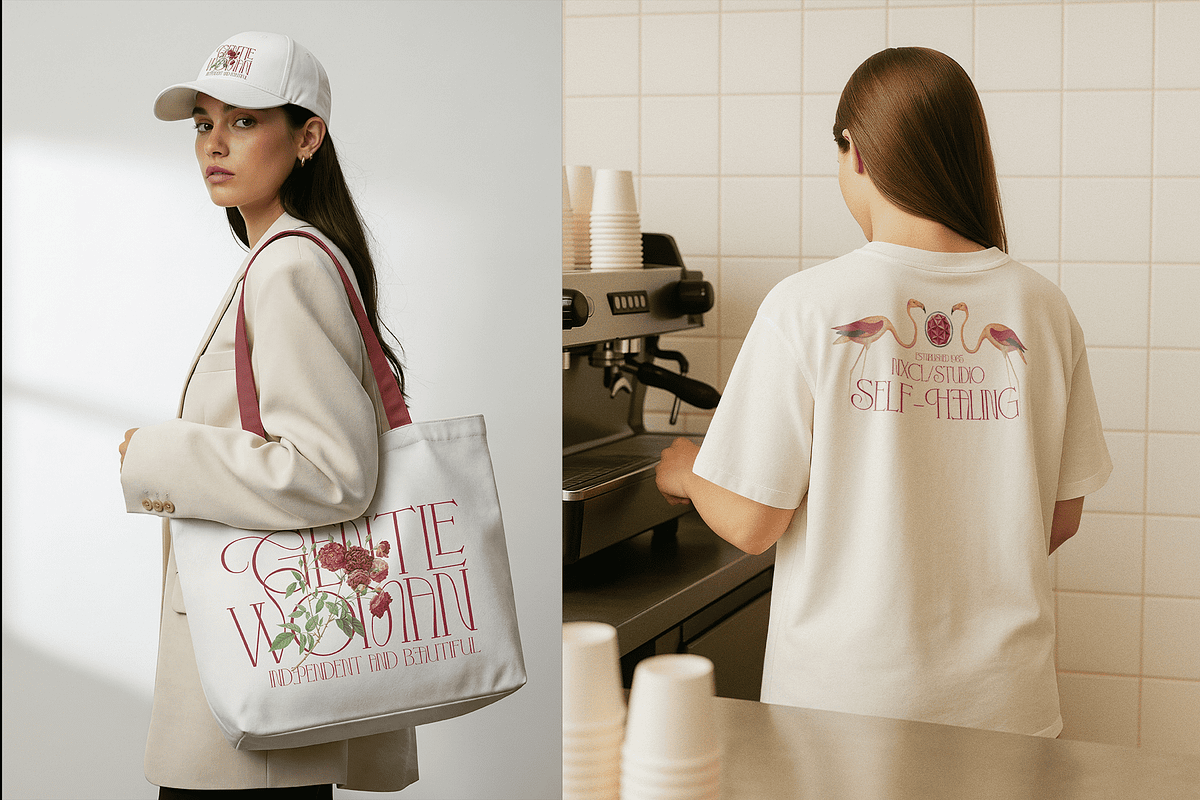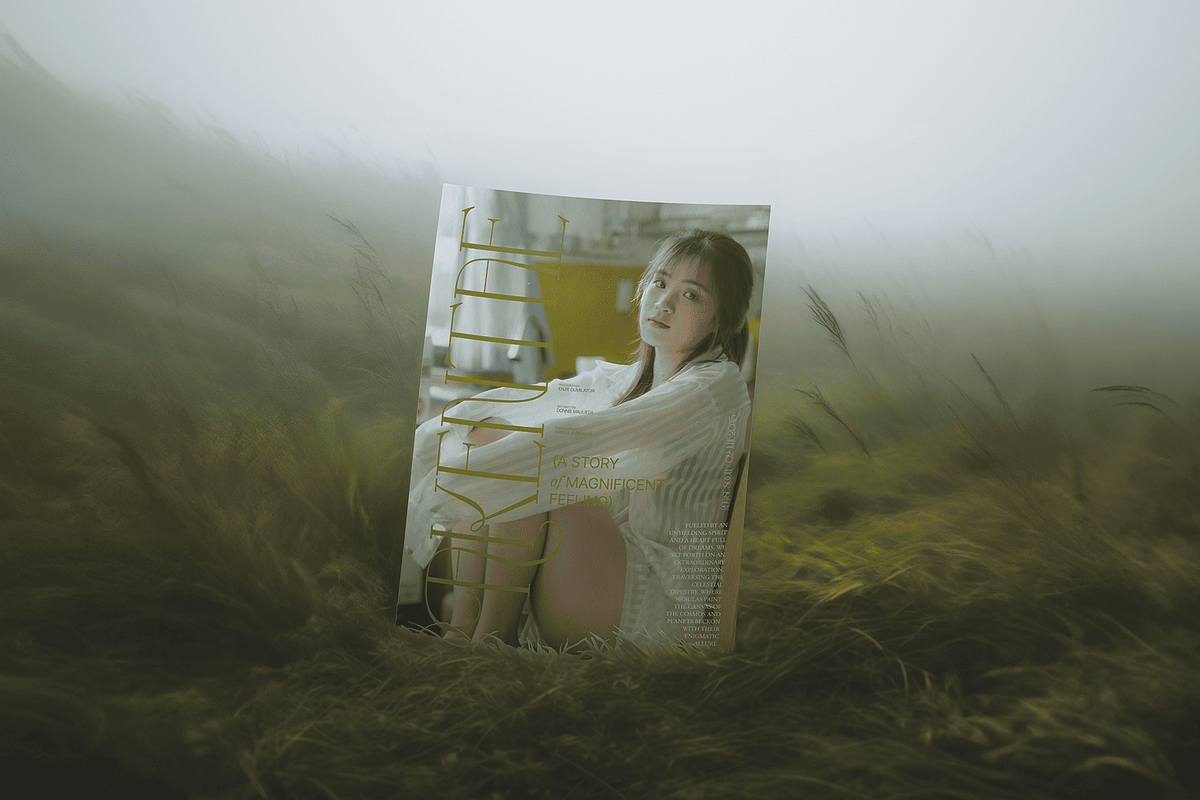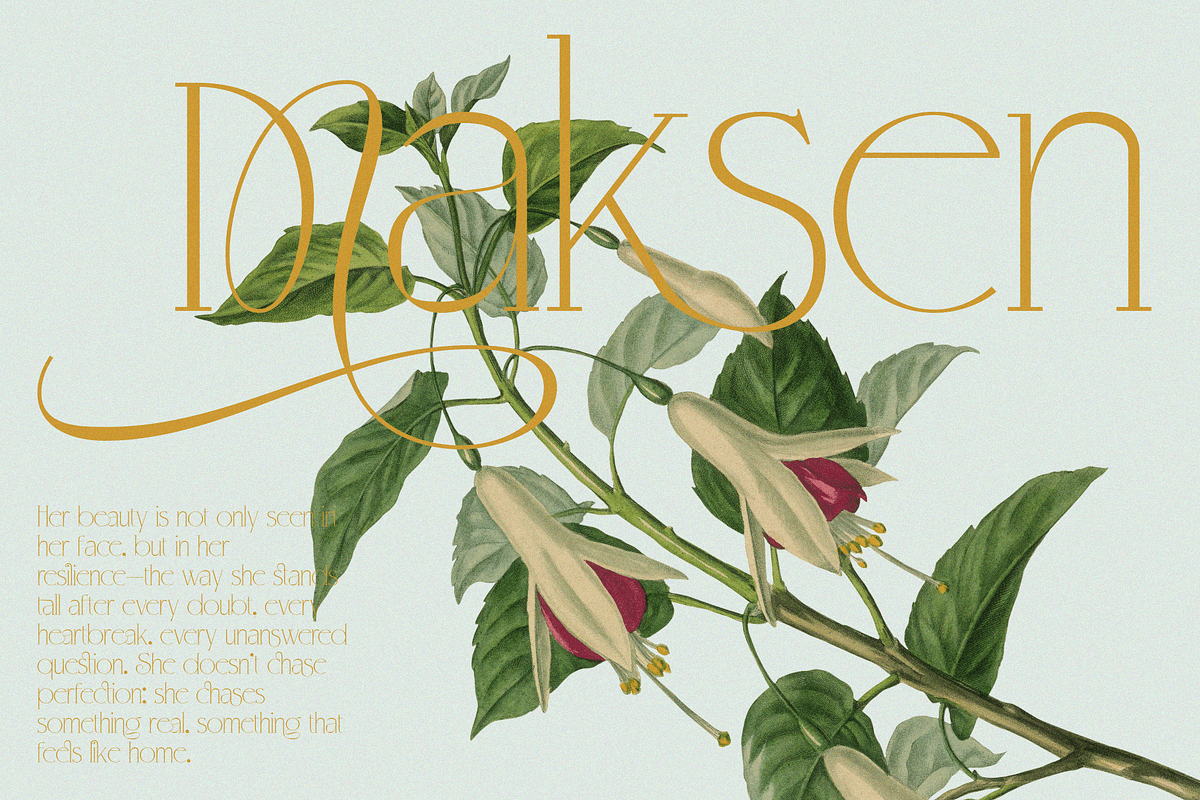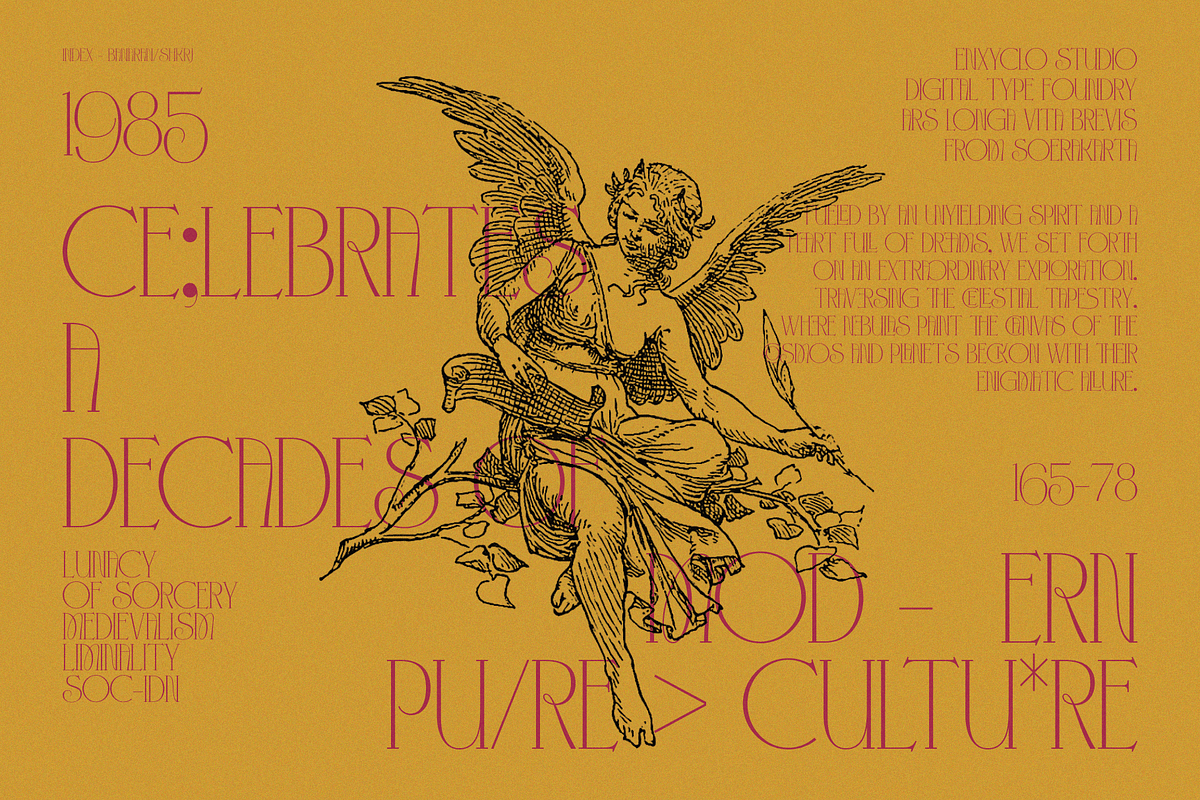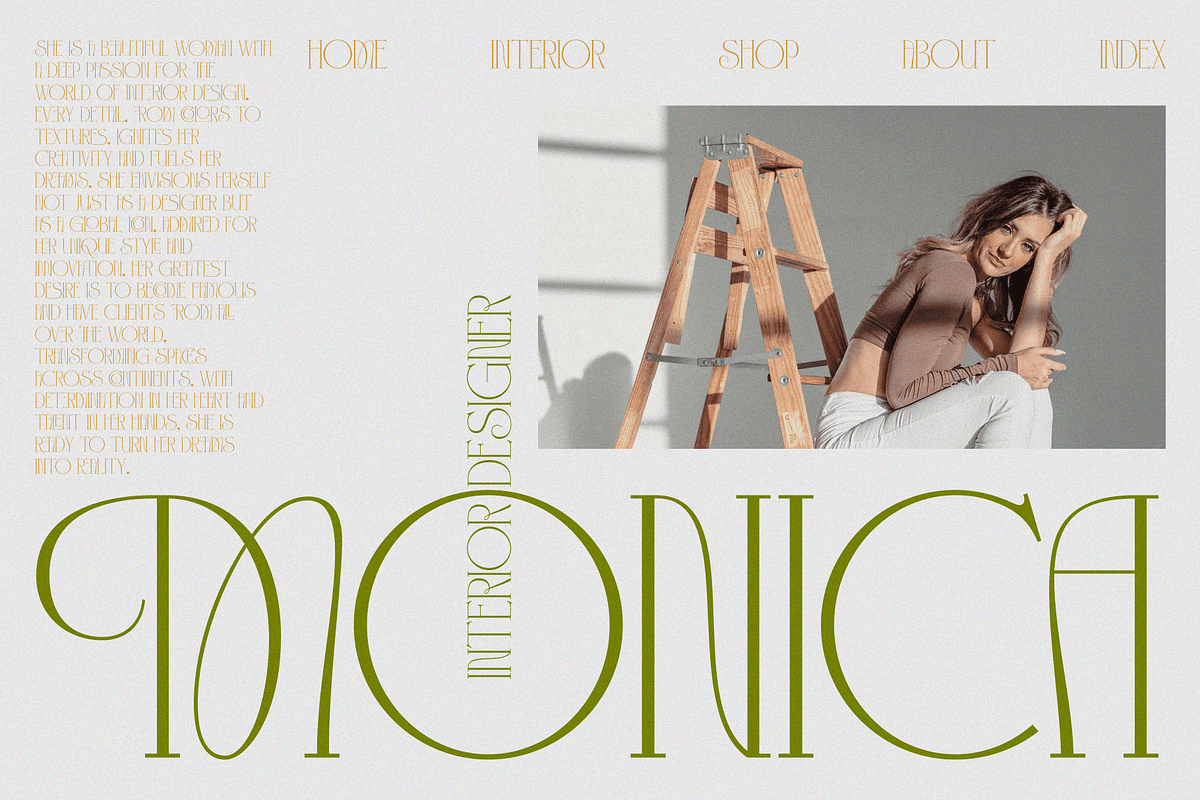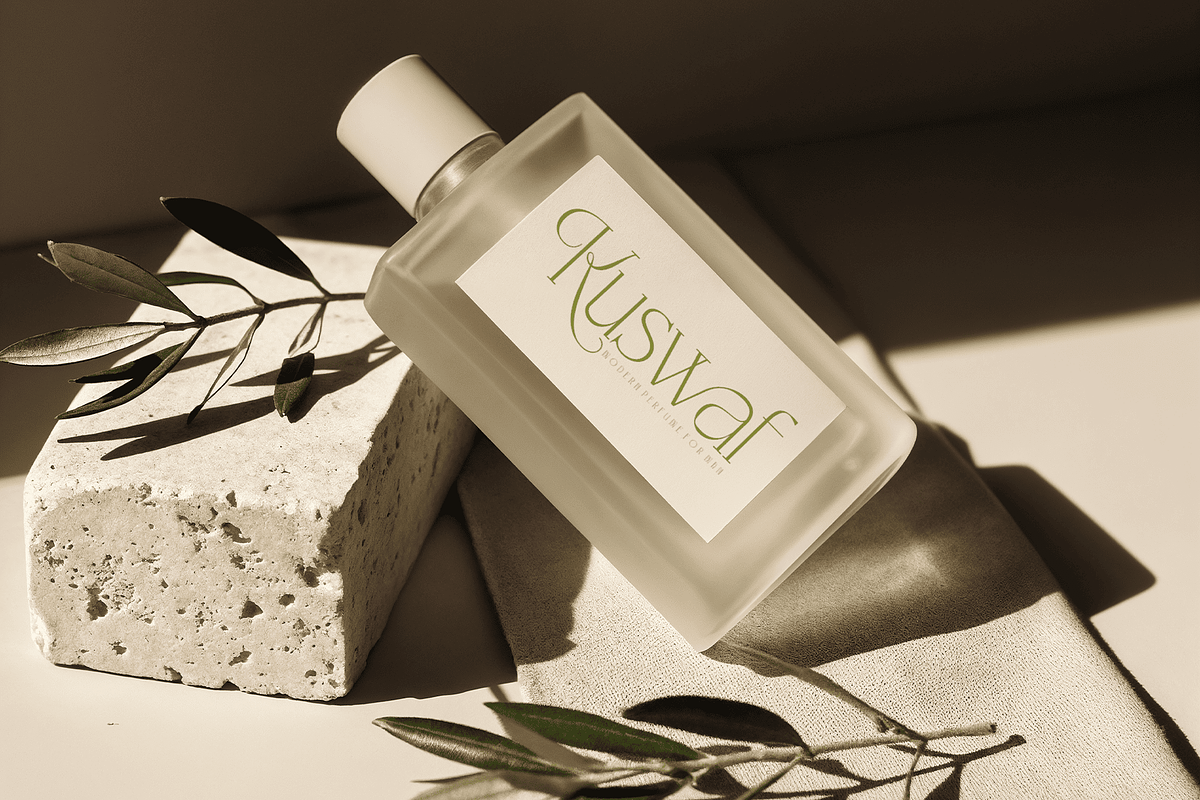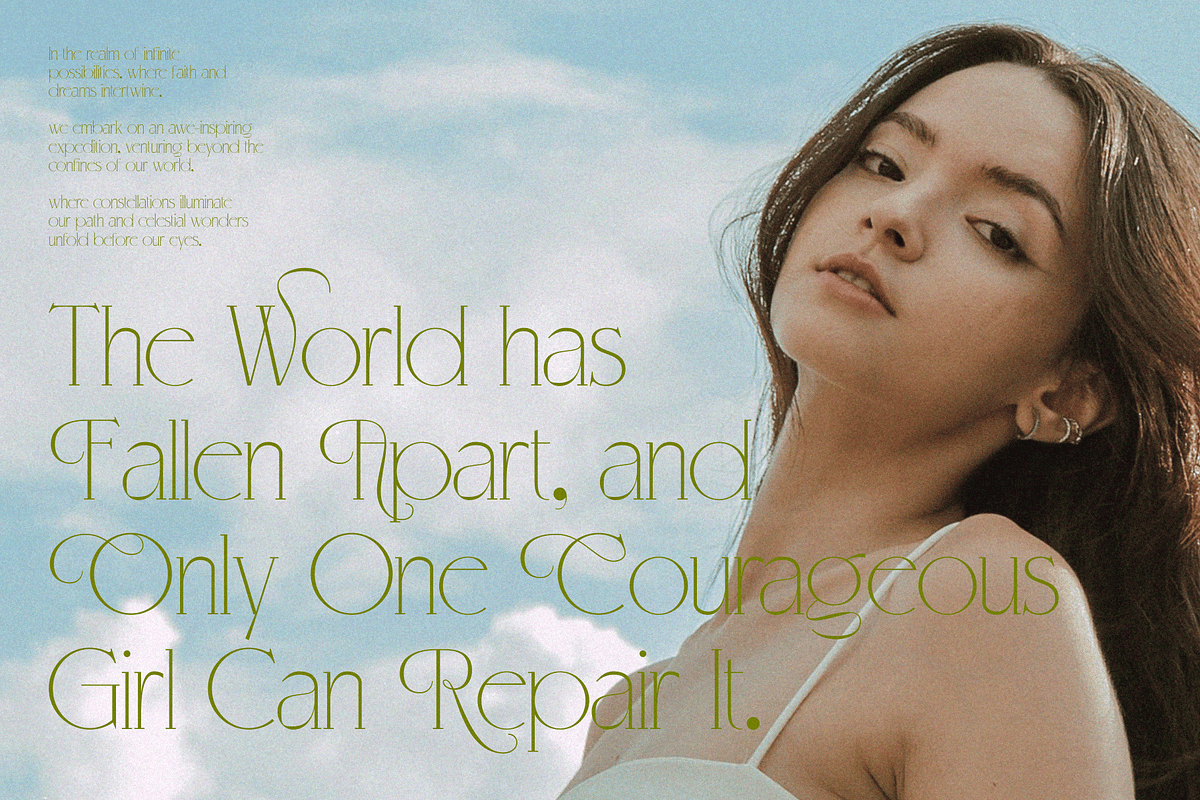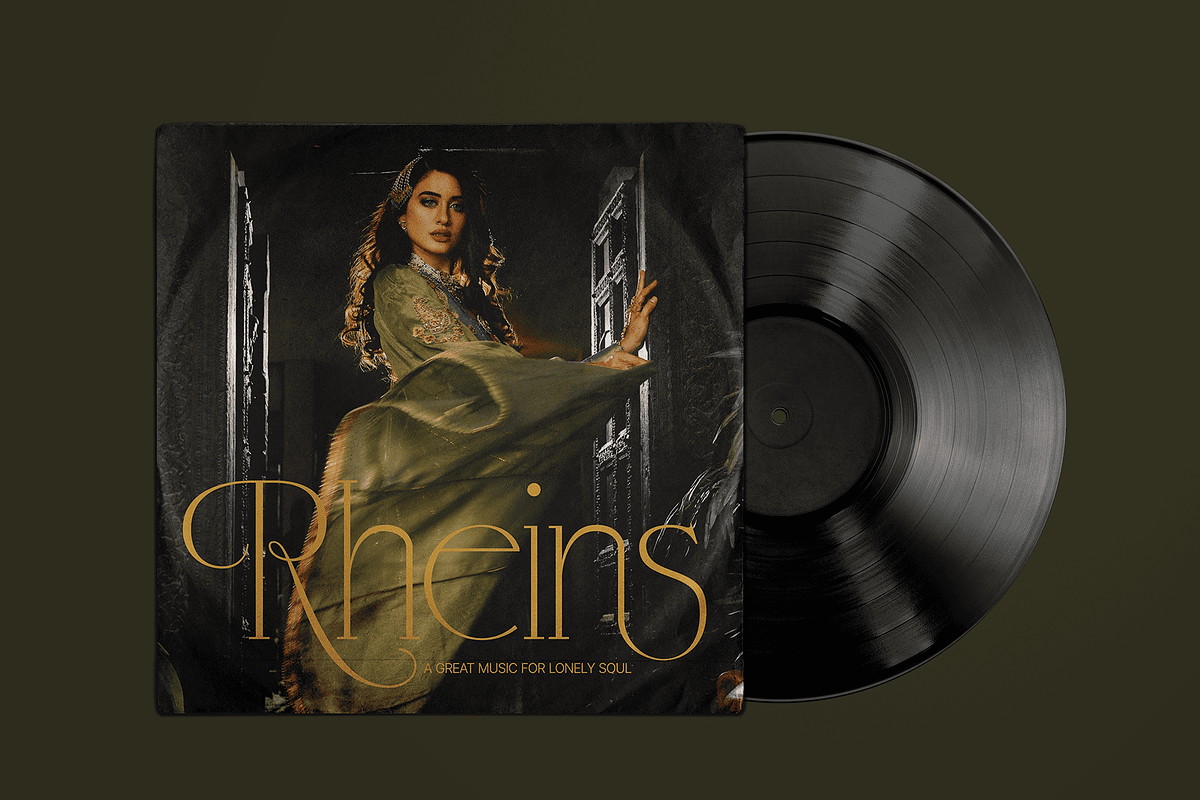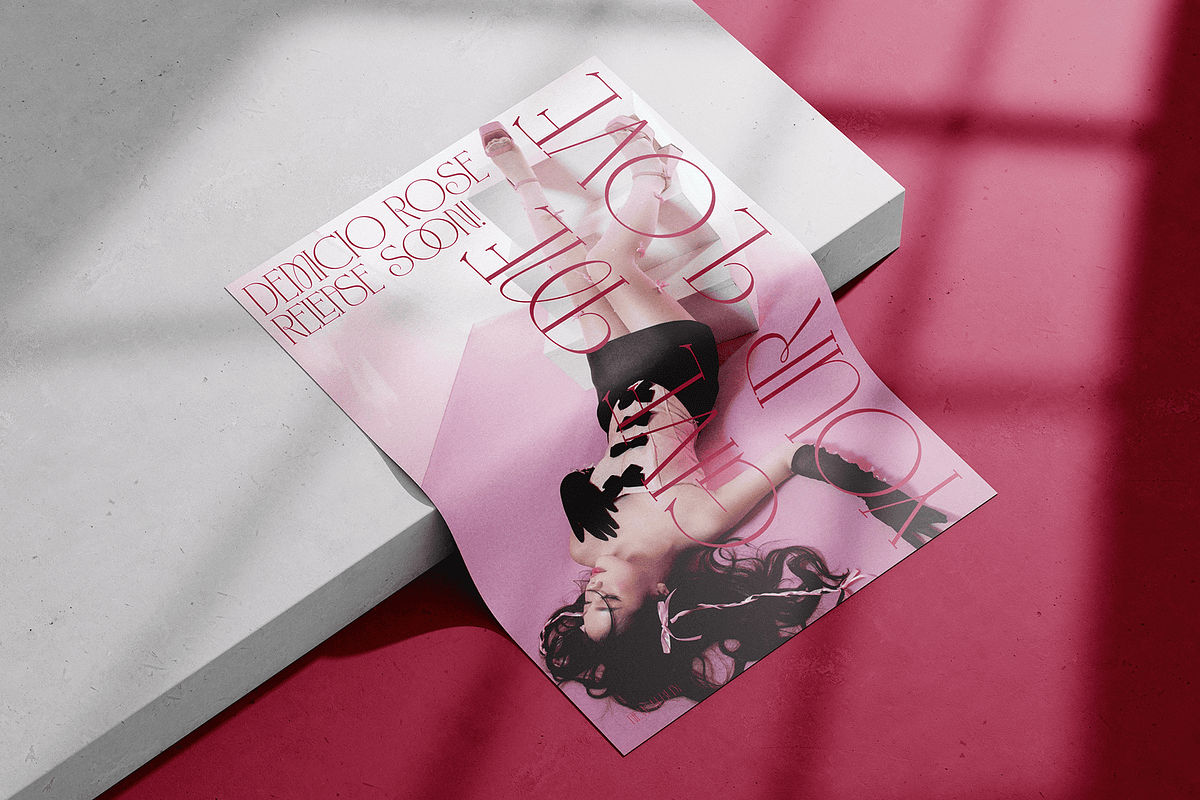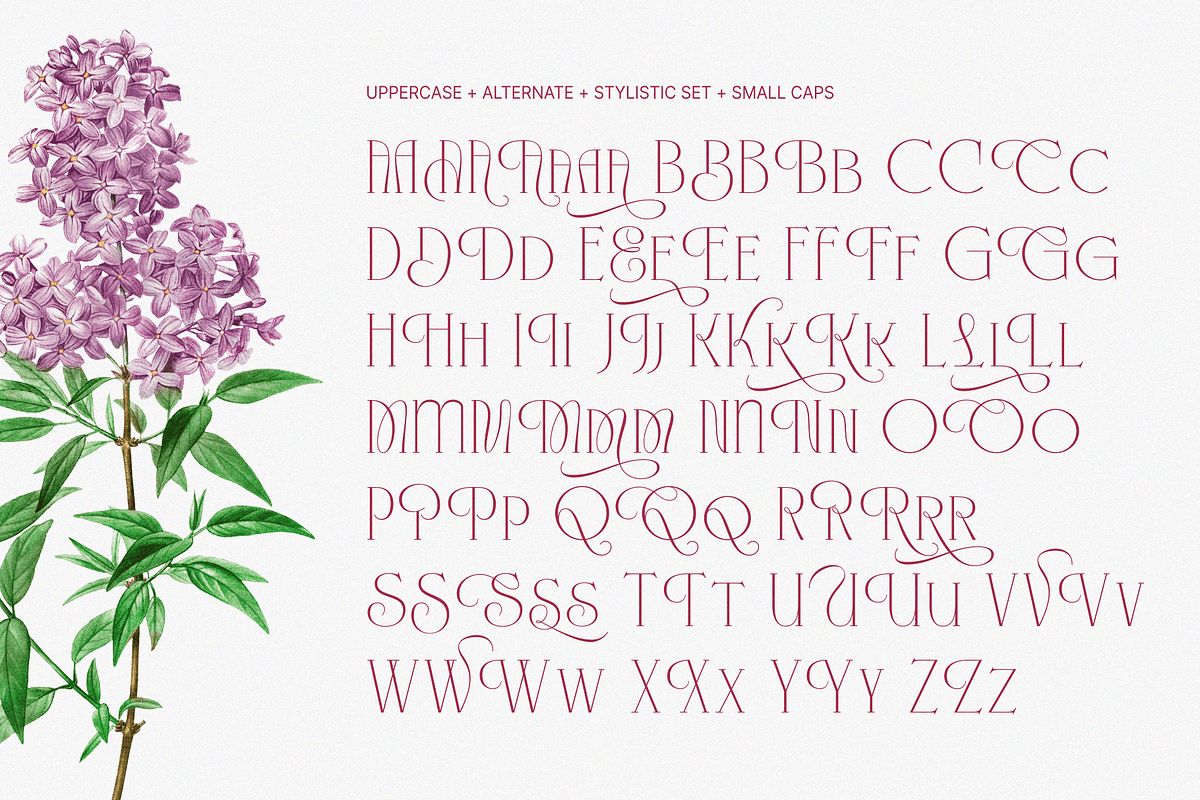
KLENSIG MOCKURA — Elegant & Luxury
KLENSIG MOCKURA — Elegant Luxury Serif Font
KLENSIG MOCKURA is a modern luxury serif font crafted to express elegance, precision, and high-end sophistication. With its refined proportions, clean structure, and subtle ligature details, this typeface delivers a lavish, premium aesthetic that feels both timeless and forward-thinking. It blends classic serif beauty with a touch of futuristic clarity, creating a distinctive visual identity that stands out in today’s design landscape.
Designed for bold logo and logotype creation, KLENSIG MOCKURA offers a perfect balance between minimal form and expressive character. Its letterforms are clean yet rich, elegant yet strong, making it ideal for fashion brands, beauty products, cosmetic packaging, skincare labels, and boutique branding. Every detail is carefully shaped to enhance readability while maintaining a luxurious and aesthetic presence.
Whether you're building a premium brand, crafting a creative identity, or designing high-impact visuals, KLENSIG MOCKURA elevates your work with a sense of glamour and refinement. It’s a font for logo design and branding that communicates confidence, creativity, and modern luxury in every letter.